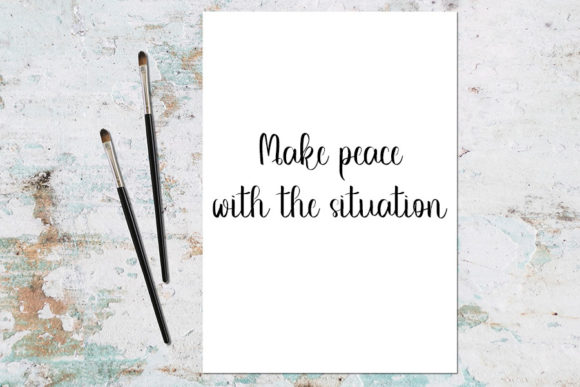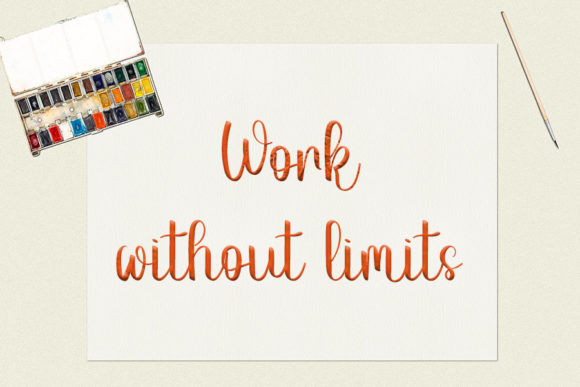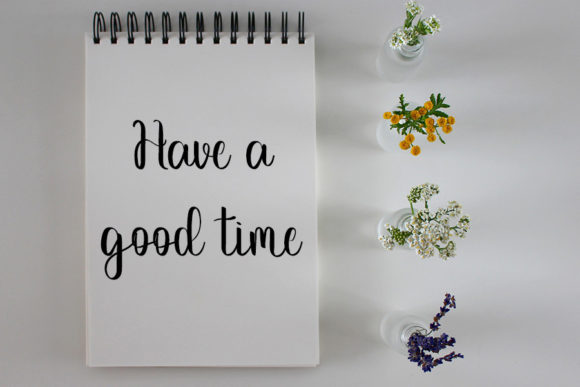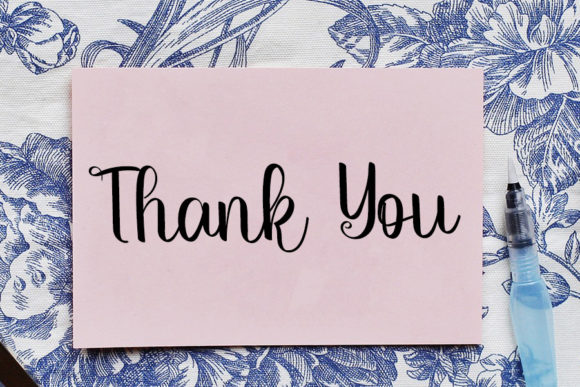
Introduction to Jungle Cruise Font Font
Fonts play a crucial role in design, and the Jungle Cruise Font font is a typeface that brings both character and versatility to any project. Whether you’re working on a branding project, a website, or a print design, the Jungle Cruise Font font offers a unique style that can elevate your work.
Jungle Cruise is a stylish handwritten font with a contemporary atmosphere and impeccable form, inspired by a timeless classic calligraphy.
Balanced and varied, this font was designed to enhance the beauty of your projects .
Key Features of Jungle Cruise Font Font
Why Choose Jungle Cruise Font Font?
The Jungle Cruise Font font is more than just a typeface – it’s a design tool that helps you communicate your message with style and clarity. Its unique character set and versatile design make it suitable for a wide range of applications, from elegant invitations to bold headlines.
With its carefully crafted letterforms and balanced proportions, the Jungle Cruise Font font ensures readability and visual appeal across all mediums.
What makes Jungle Cruise Font font special?
The Jungle Cruise Font font stands out with its unique design, exceptional readability, and versatility across various design applications.